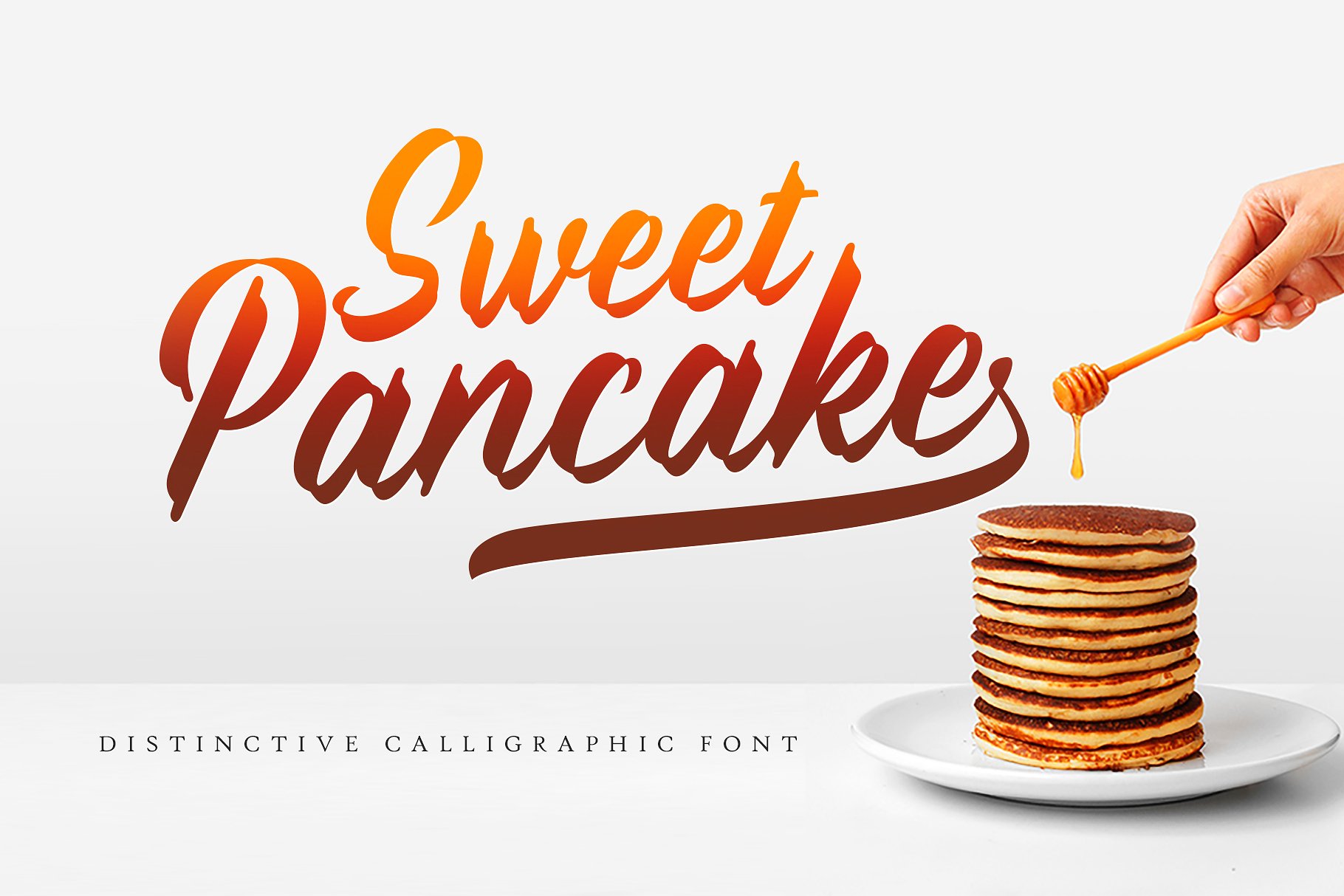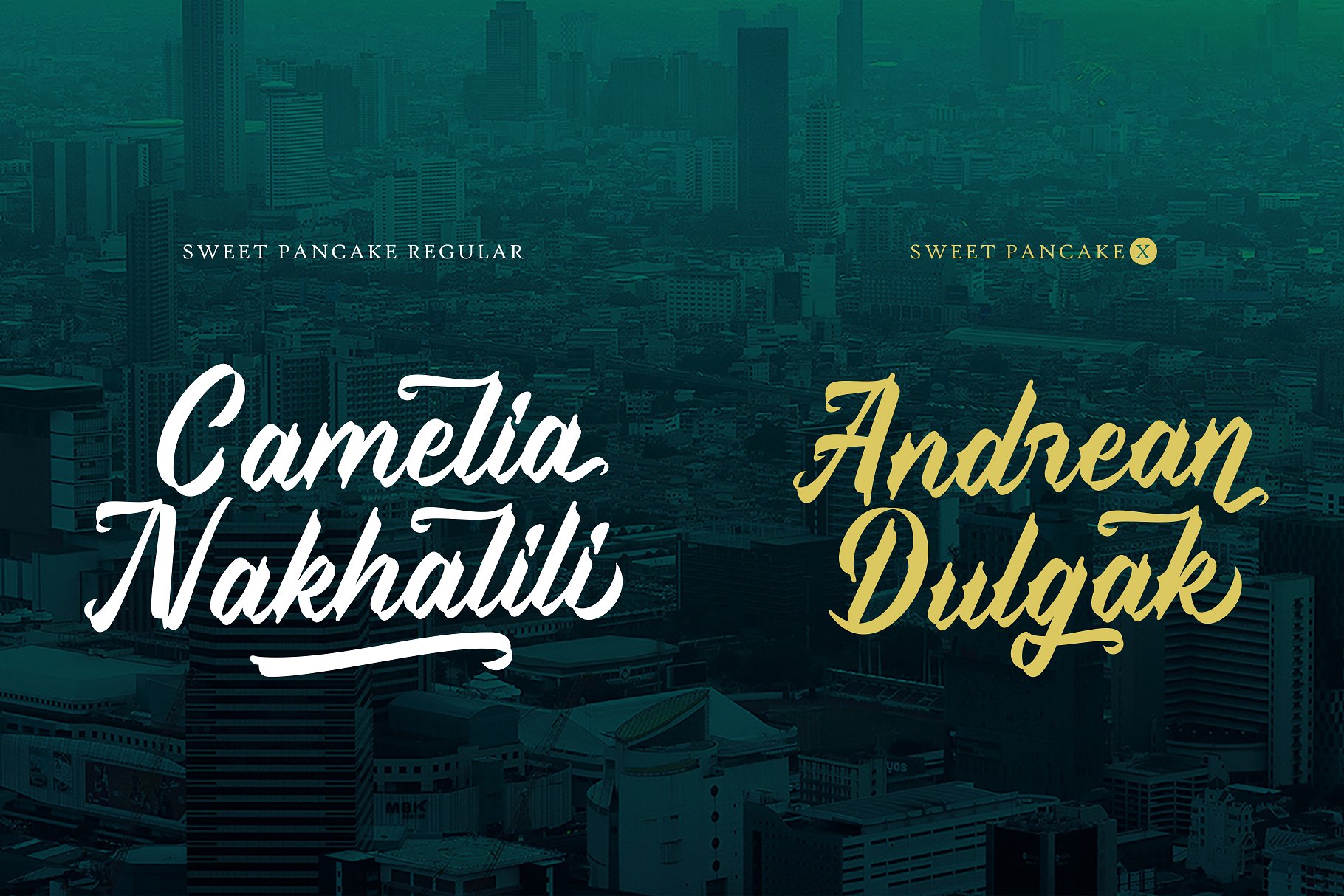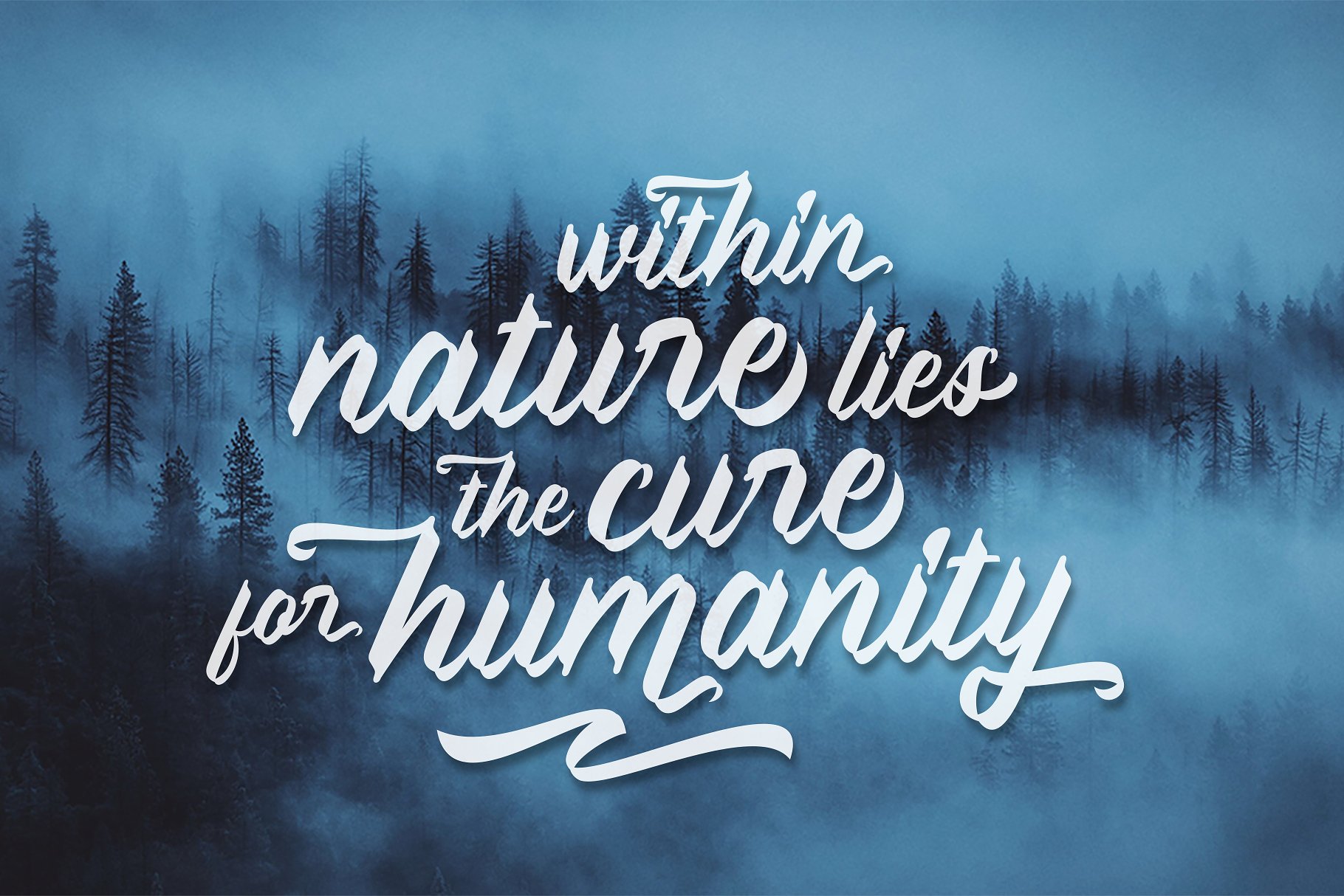
Sweet Pancake Script Font
We often see calligraphy fonts with a standard style developed from the brush pen strokes. Sweet Pancakefont comes in different calligraphy styles. The usual shape has been customized to make it look more personal and special.
Sweet Pancake is available in two versions, regular and X. The second version is the development of the regular version by adding sharp corners to the stem.
Sweet Pancake font comes in different calligraphy styles. The usual shape has been customized to make it look more personal and special.
To be more specific, this font also includes several swash so that you can easily mix and match unique and different typographic designs. To attach a special swash to the letter end automatically, you only need to add two / three / four hyphens (the standard ligature feature must be activated).